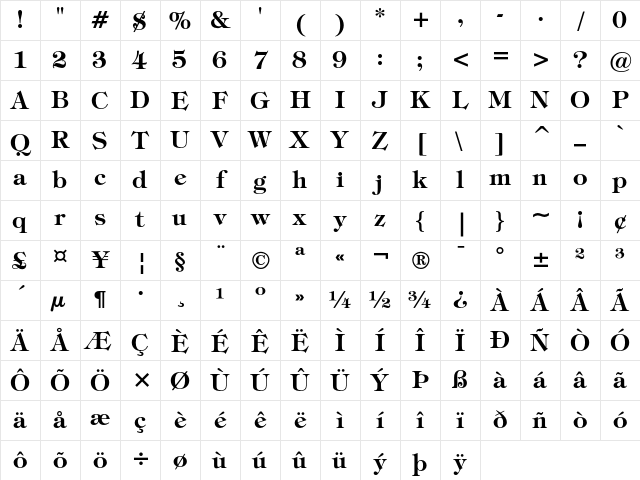
ITC Tiffany Demi
Style: Demi
ITC Tiffany Family
ITC Tiffany Demi
ITC Tiffany Demi Font Preview
ITC Tiffany Demi Uppercase Preview
ITC Tiffany Demi Lowercase Preview
ITC Tiffany Demi Numeric Preview
Complete ITC Tiffany Demi glyph index. Displaying only characters natively supported by ITC Tiffany Demi font.
Design Context for ITC Tiffany
ITC Tiffany is a composed and adaptable typeface that performs quietly and consistently across a wide range of design contexts.
Pro Tip: Use ITC Tiffany in both headline and body roles to test its range before committing to a single application.